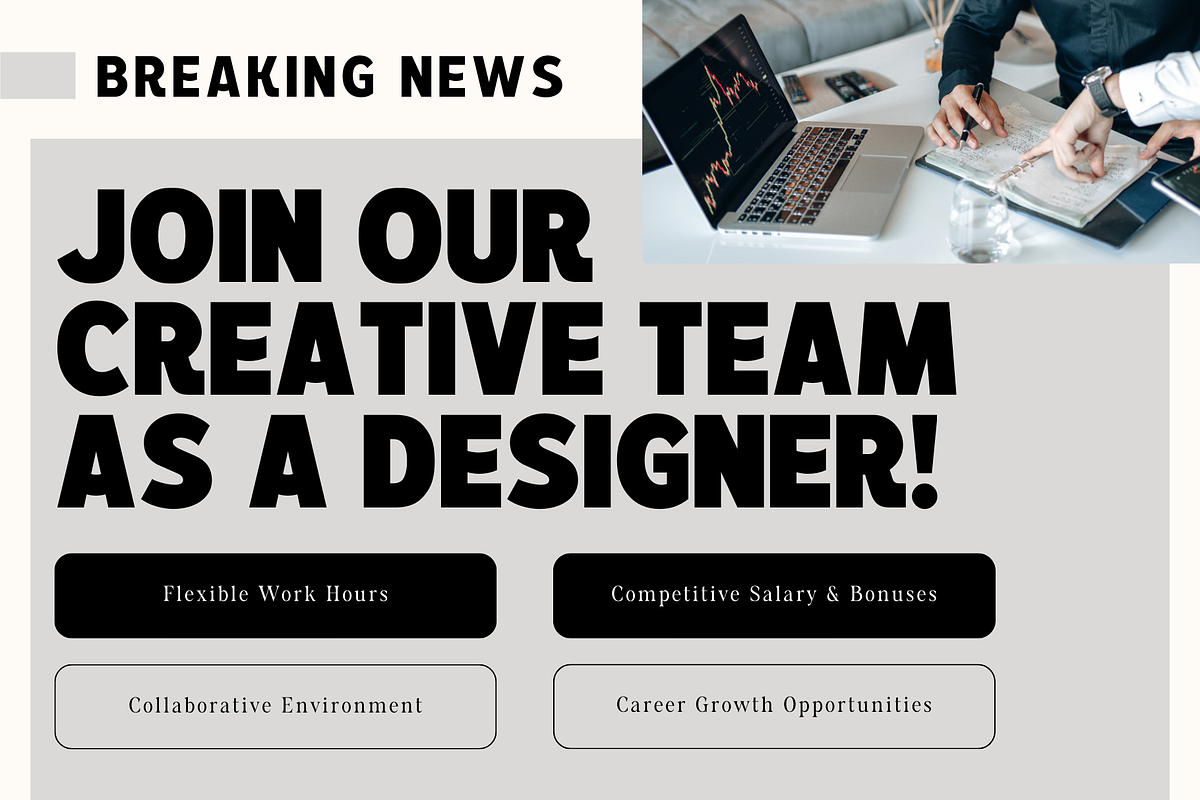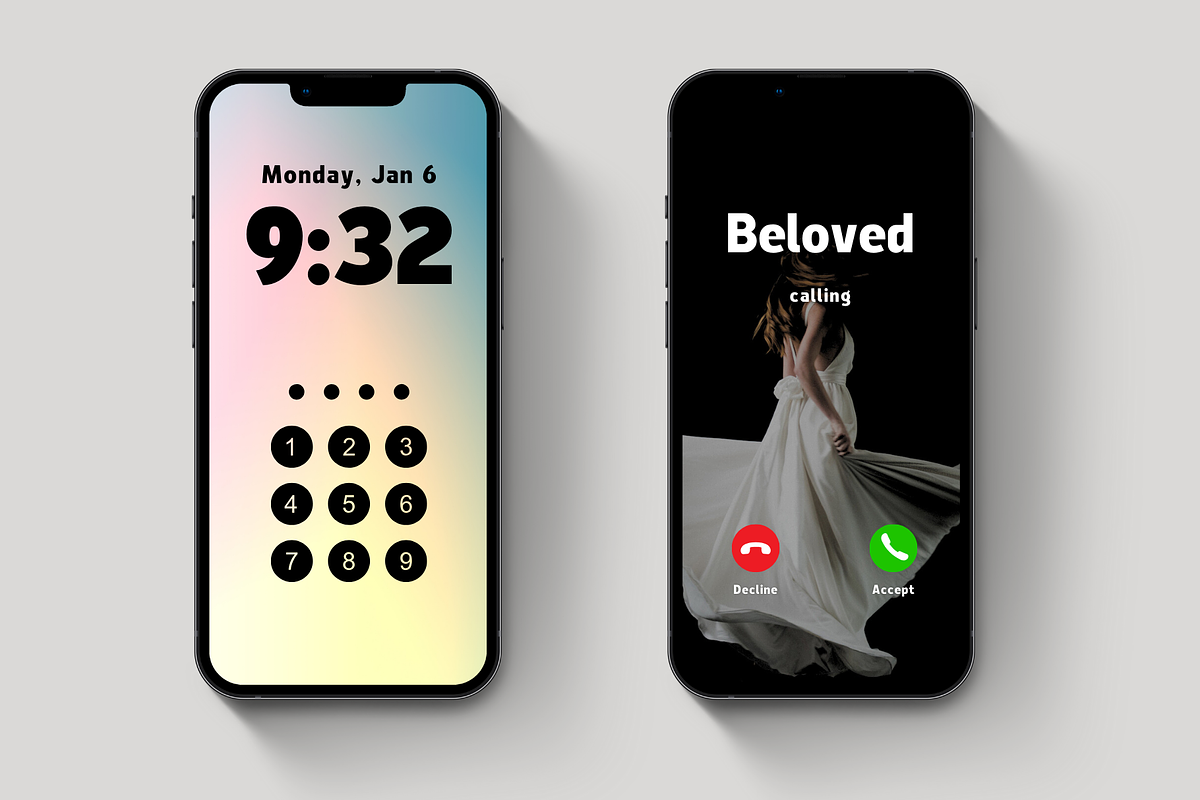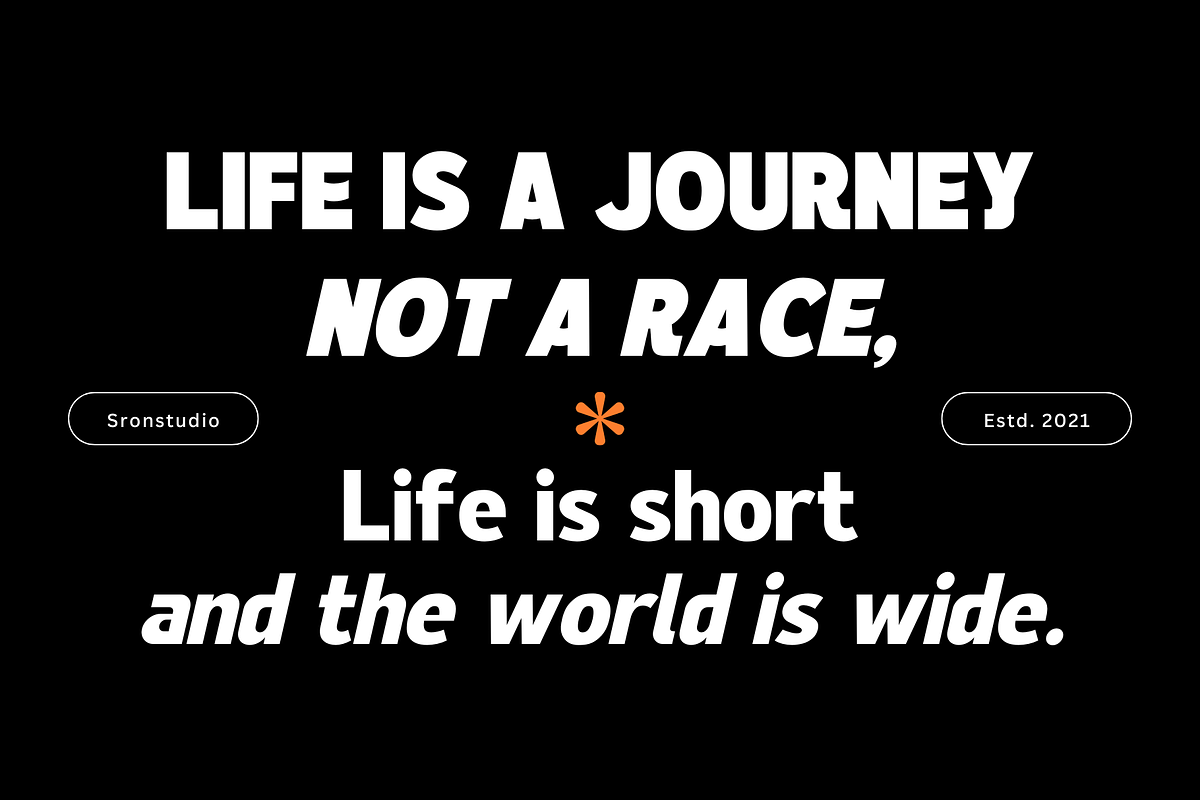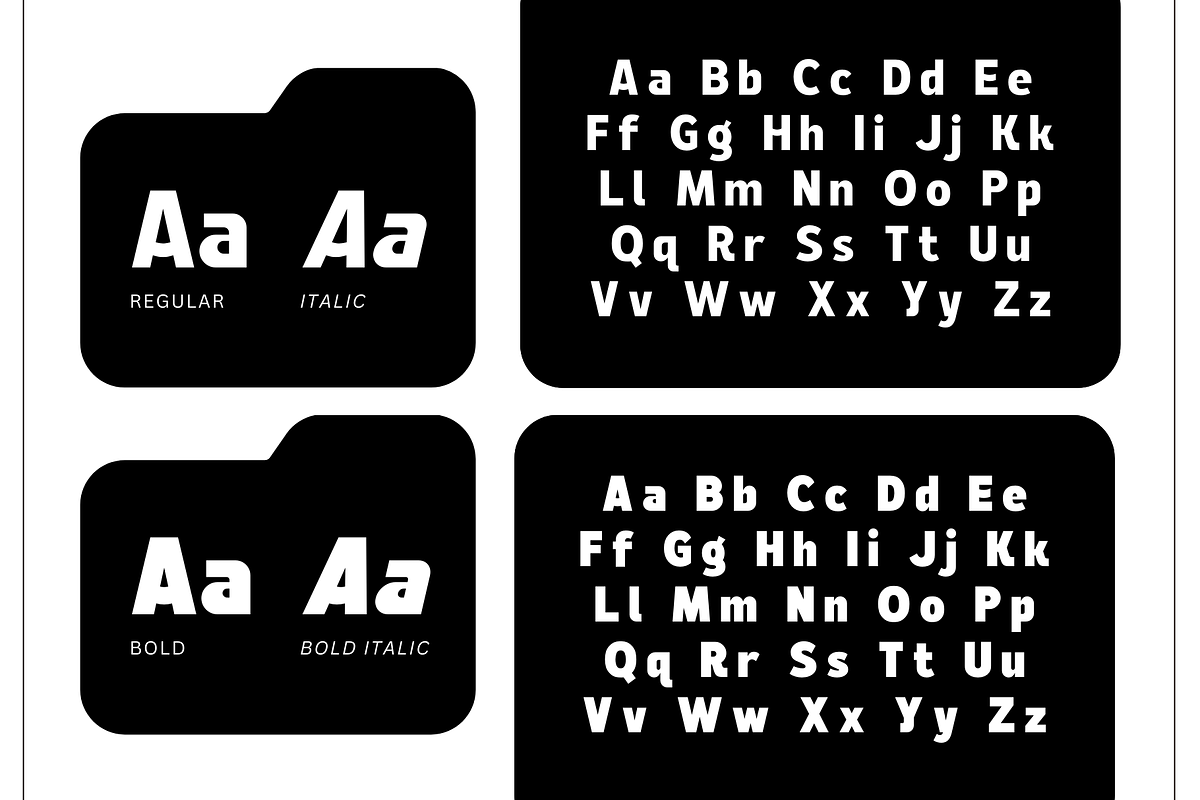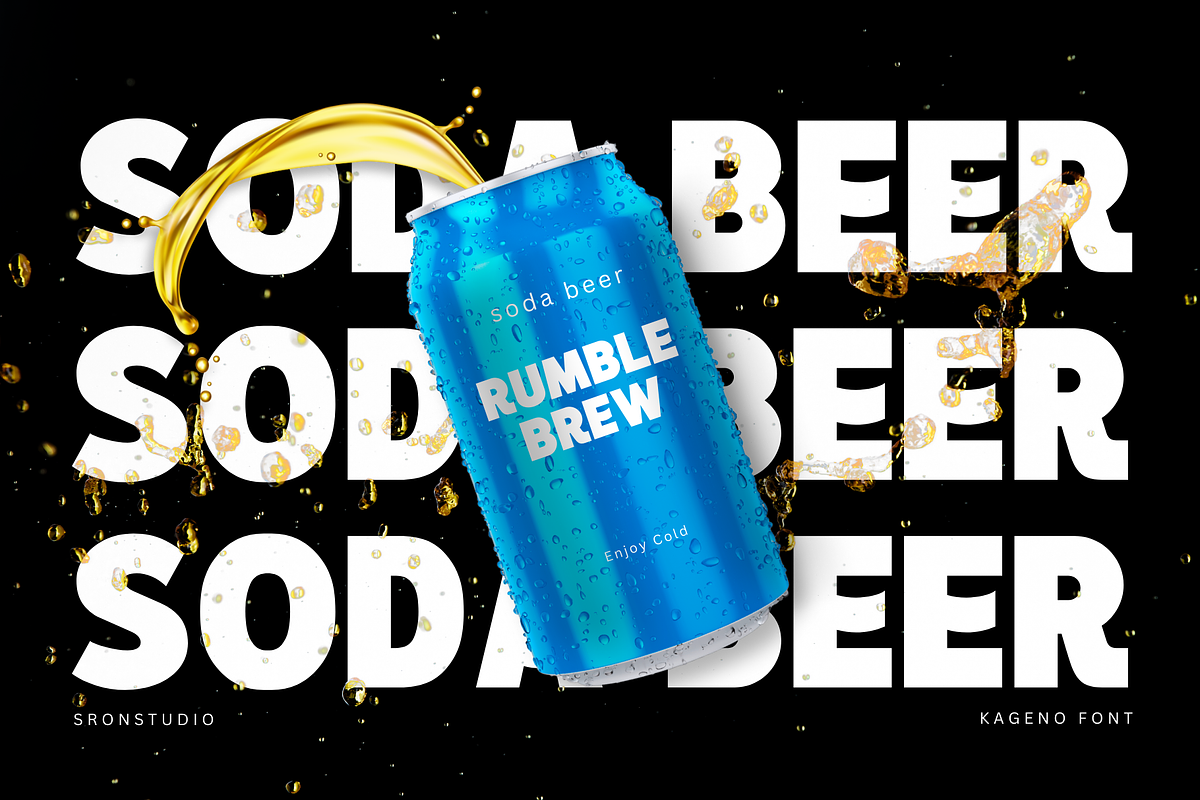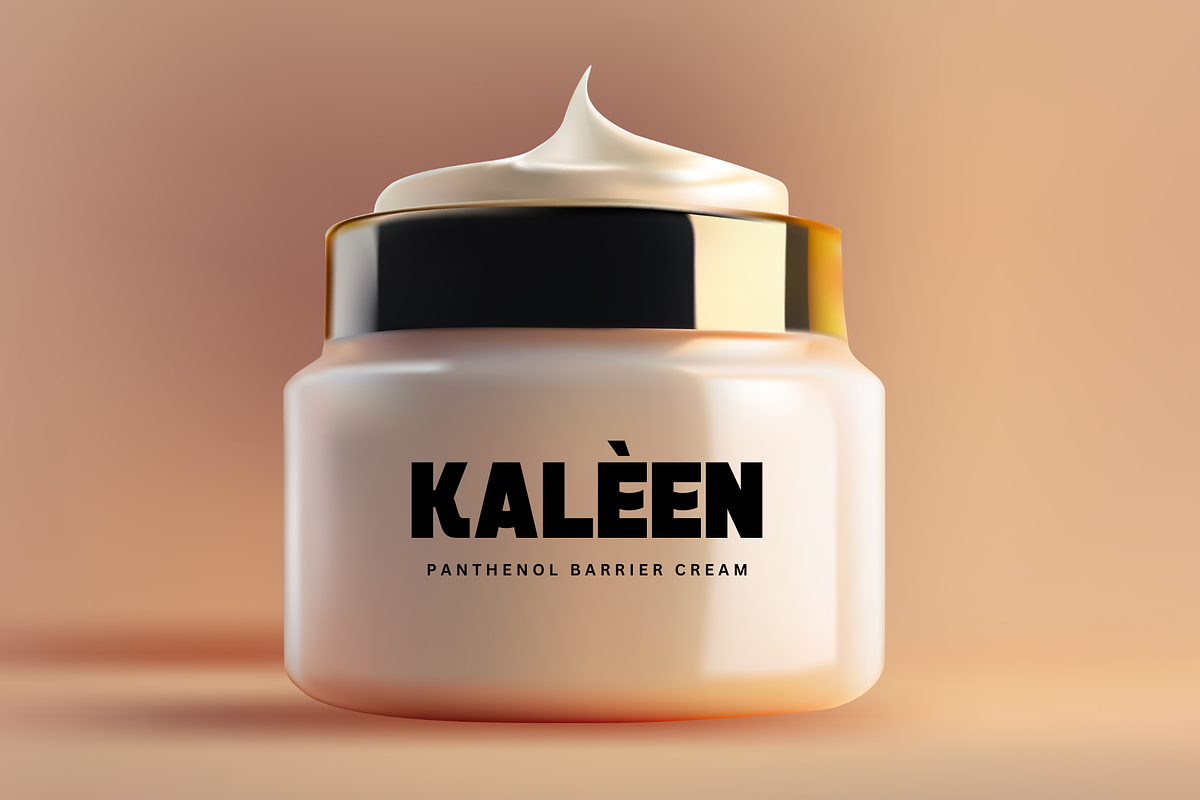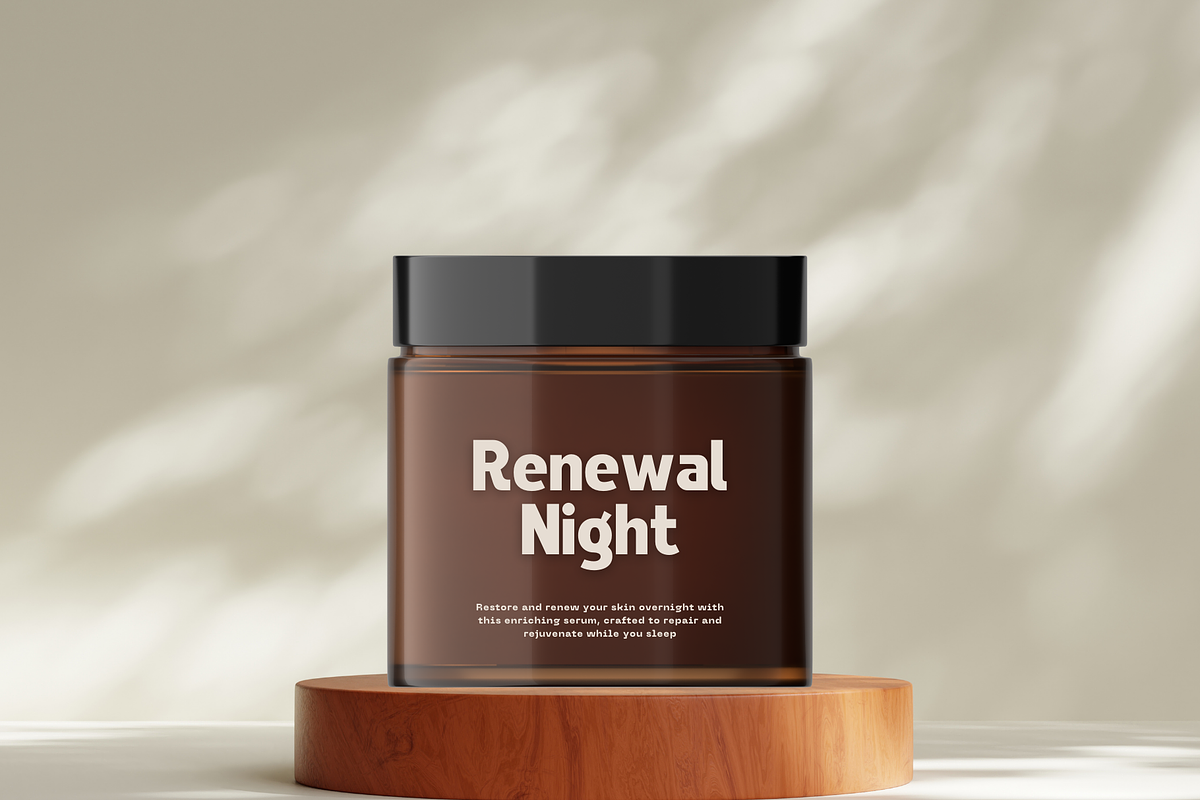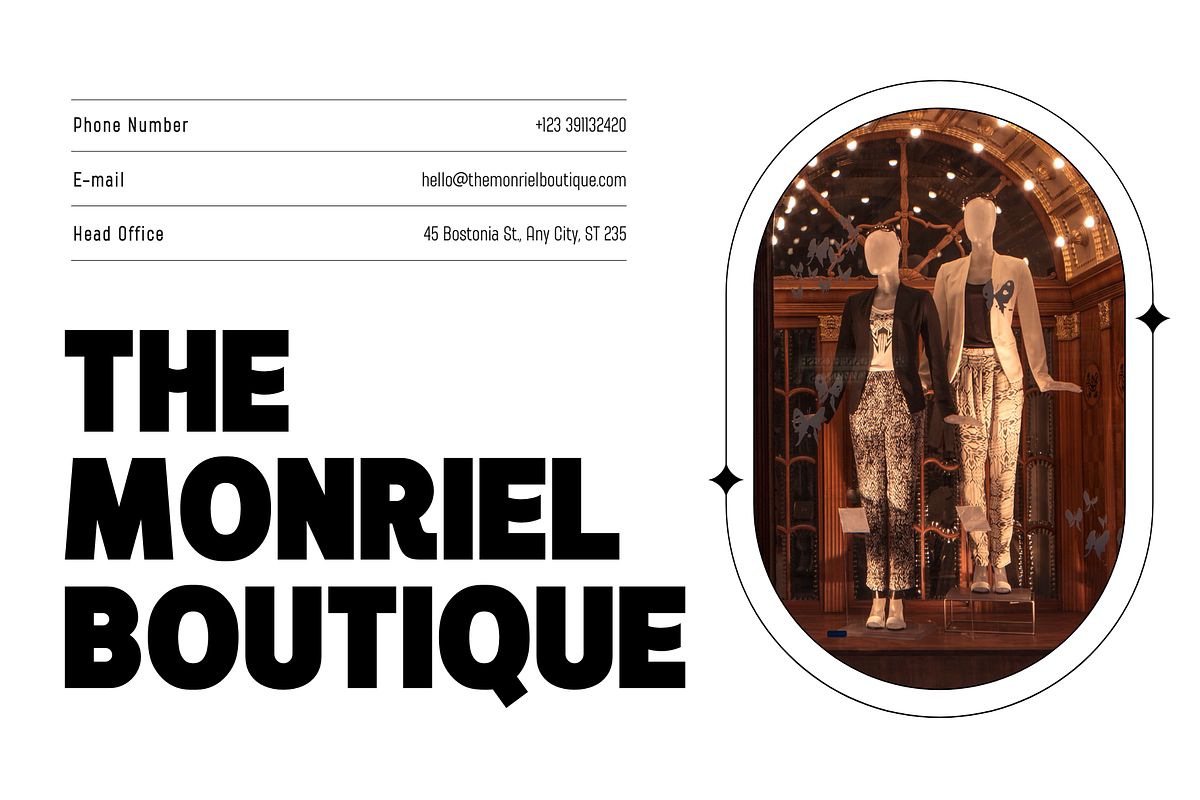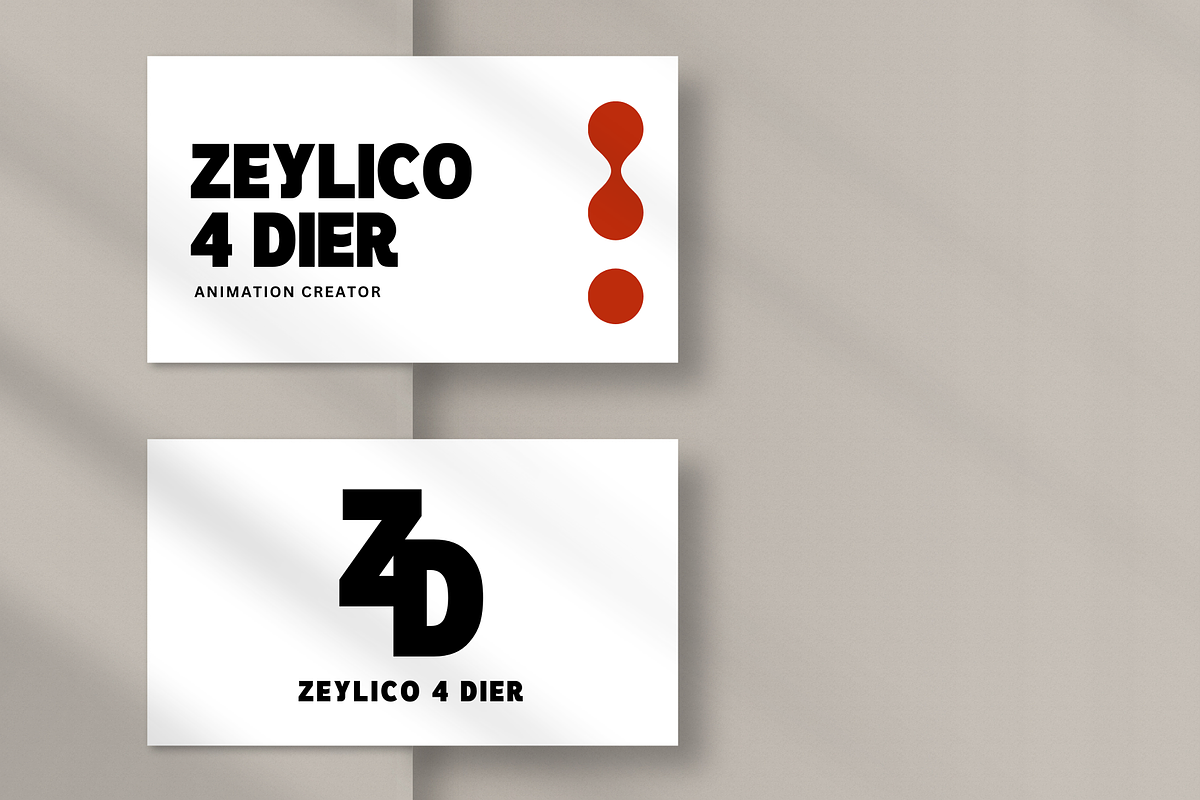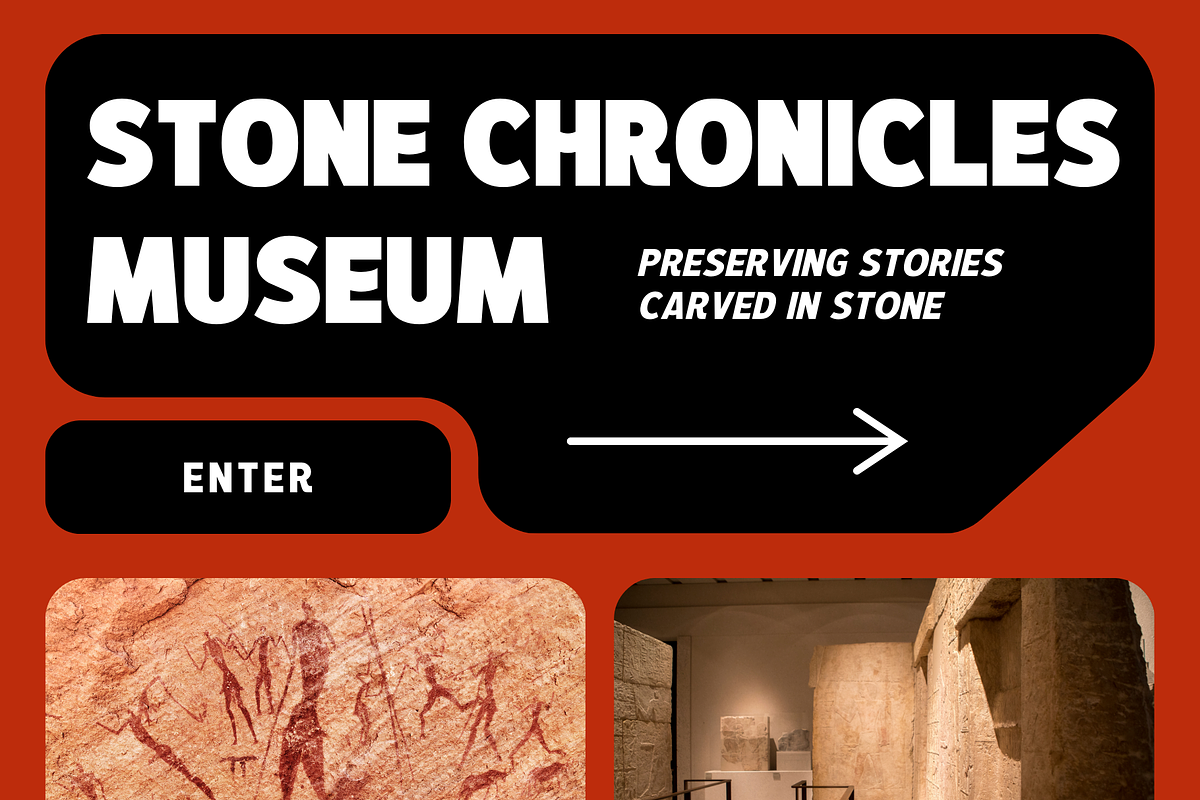
Kageno - Sans Serif Font
Kageno is a bold sans display font that exudes strength and modern style. With its clean lines and impactful presence, it's perfect for headlines, posters, logos, and branding projects that require a powerful and confident look. Kageno brings boldness and clarity to your designs, making a lasting impression.